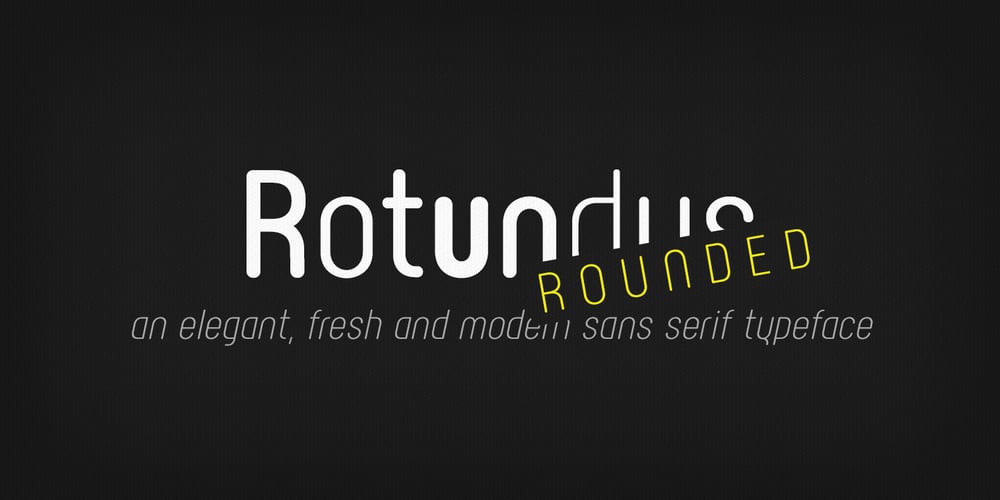
Rotundus Rounded Font Family was designed by Christian Lang and published by dayflash. Rotundus Rounded contains 14 styles and family package options. Rotundus Rounded is a rounded sibling of Rotundus, an elegant sans serif typeface based on geometric shapes. Precise lines and accurate curves with soft edges are the main characteristics of this fresh and modern font family. While unconventional letterforms give Rotundus Rounded its distinctive appearance, a tall x-height and a condensed width provide good legibility and nice readability even at smaller sizes. With its contemporary feel, Rotundus Rounded is suitable for almost any type of analogue and digital application.The Rotundus Rounded font family includes unique letterforms, exclusive ligatures and extensive OpenType features. Rotundus Rounded comes in six weights with matching italics.